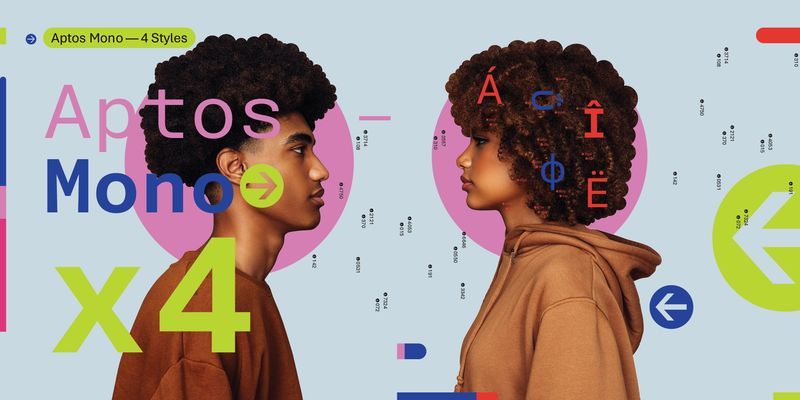
Aptos Mono is a monospaced typeface – that is, every letter has exactly the same width. It is the monospaced complement to the contemporary sans serif typeface Aptos. Aptos Mono is essentially sans serif in style, although letters like ‘i’, ‘l’, and ‘r’, which might otherwise be somewhat narrow, feature stubby flat serifs that help to fill the space as well as keeping them easily distinguishable.
Aptos Mono has strokes of even thickness, wide letter width, and generous spacing between letters, all of which contributes to its legibility. Like many monospaced fonts, it is most at home in code, but it could also be used in spreadsheets, labels, or small amounts of information signage.
Aptos Mono has two weights, Regular and Bold, with italic complements; all versions have identical letter widths. The fonts offer extended support of the Latin, Greek, and Cyrillic alphabets, along with fractions, arrows, and both black and white circled numbers.
Aptos Mono is the monospaced companion to Aptos, Aptos Narrow and Aptos Display and was also designed by Steve Matteson.